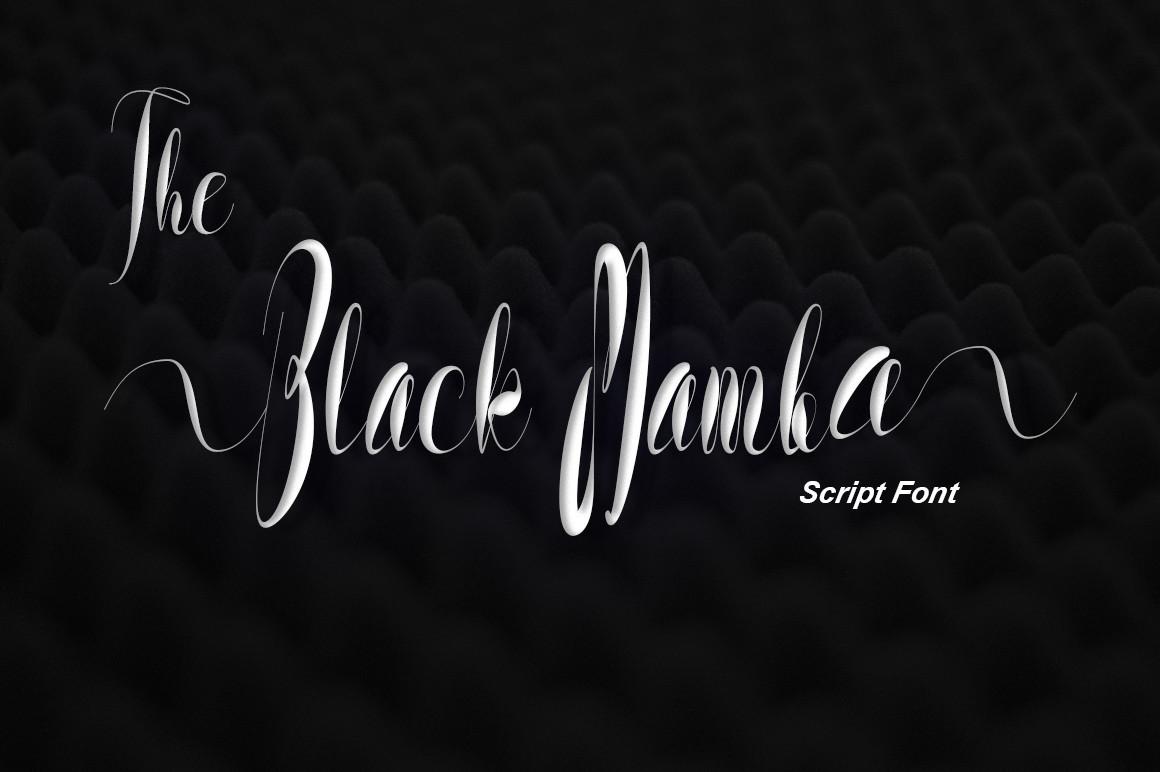
The Black Mamba Font Description
The Black Mamba is a romantic and sweet calligraphy typeface with characters that dance along the baseline. It will add a luxury spark to any design project that you wish to create! This font is PUA encoded which means you can access all of the amazing glyphs and ligatures with ease!